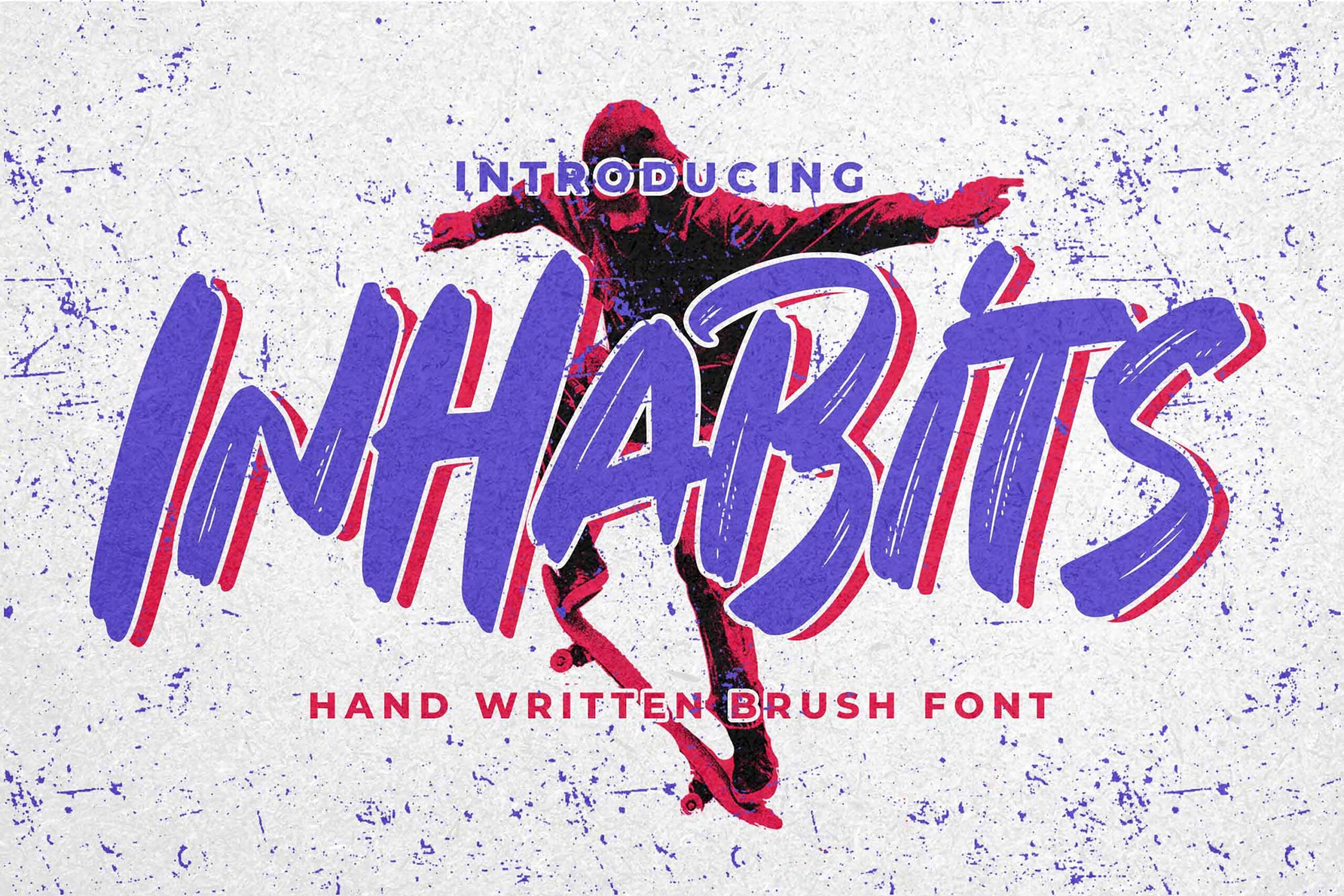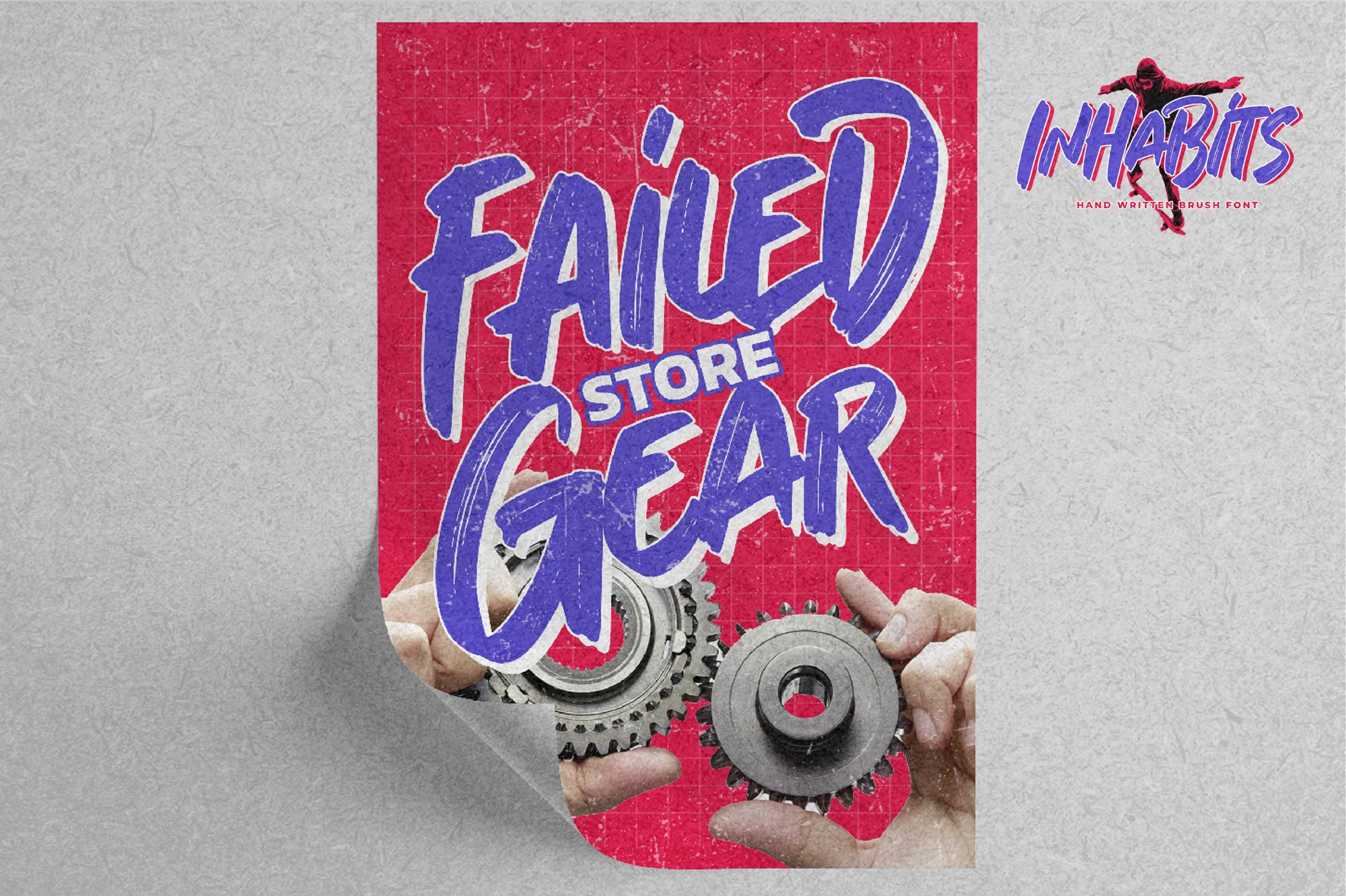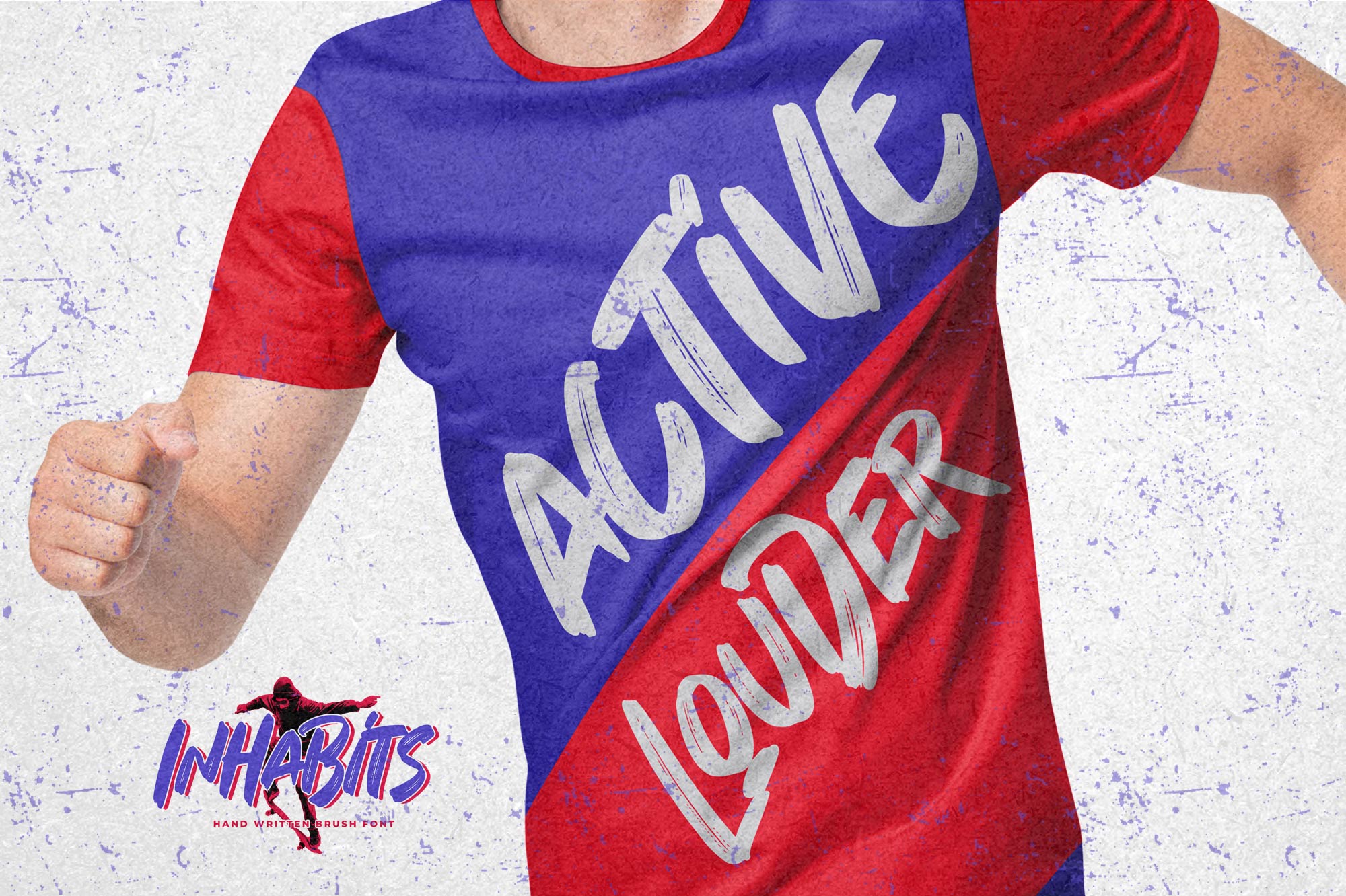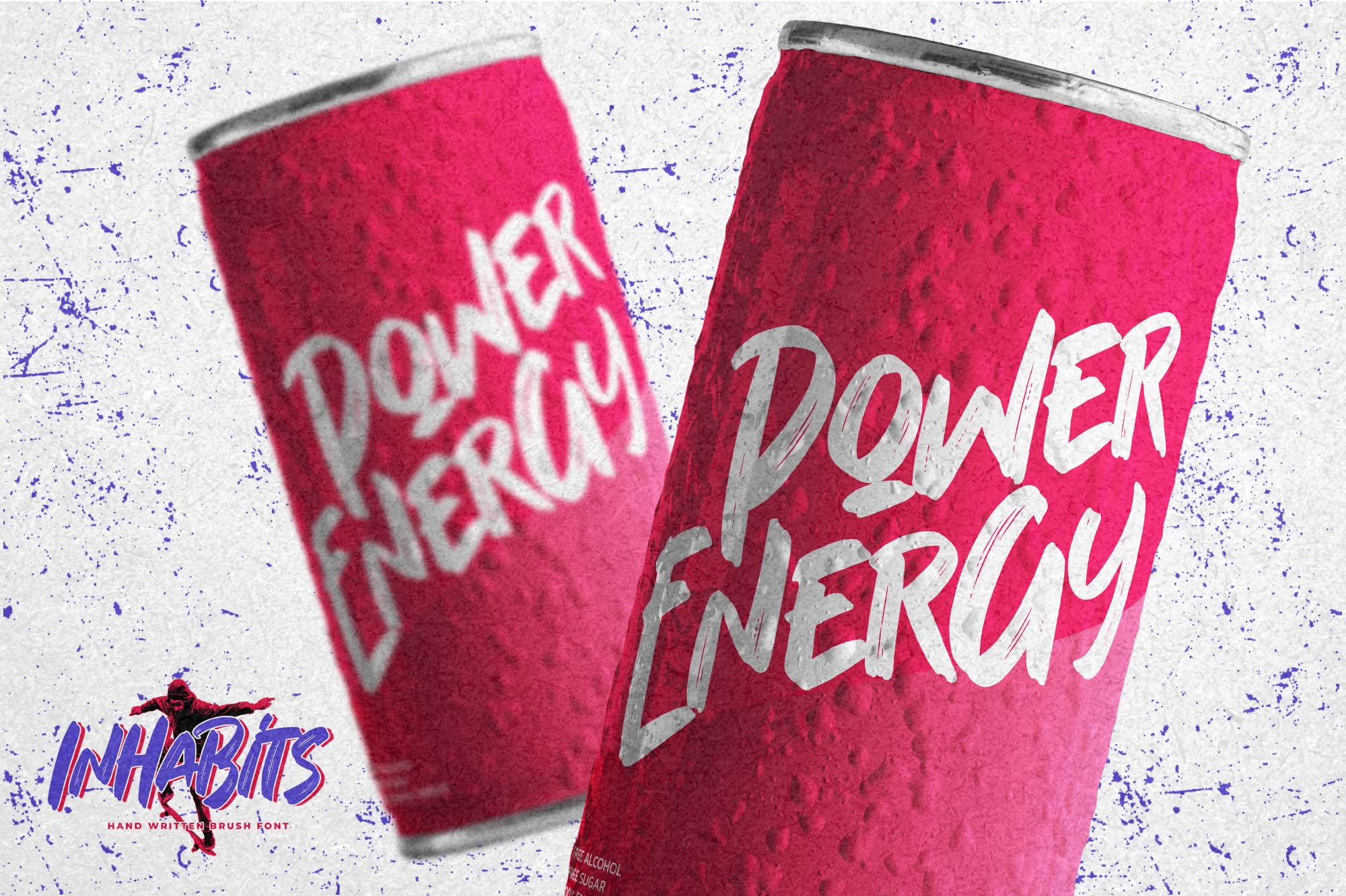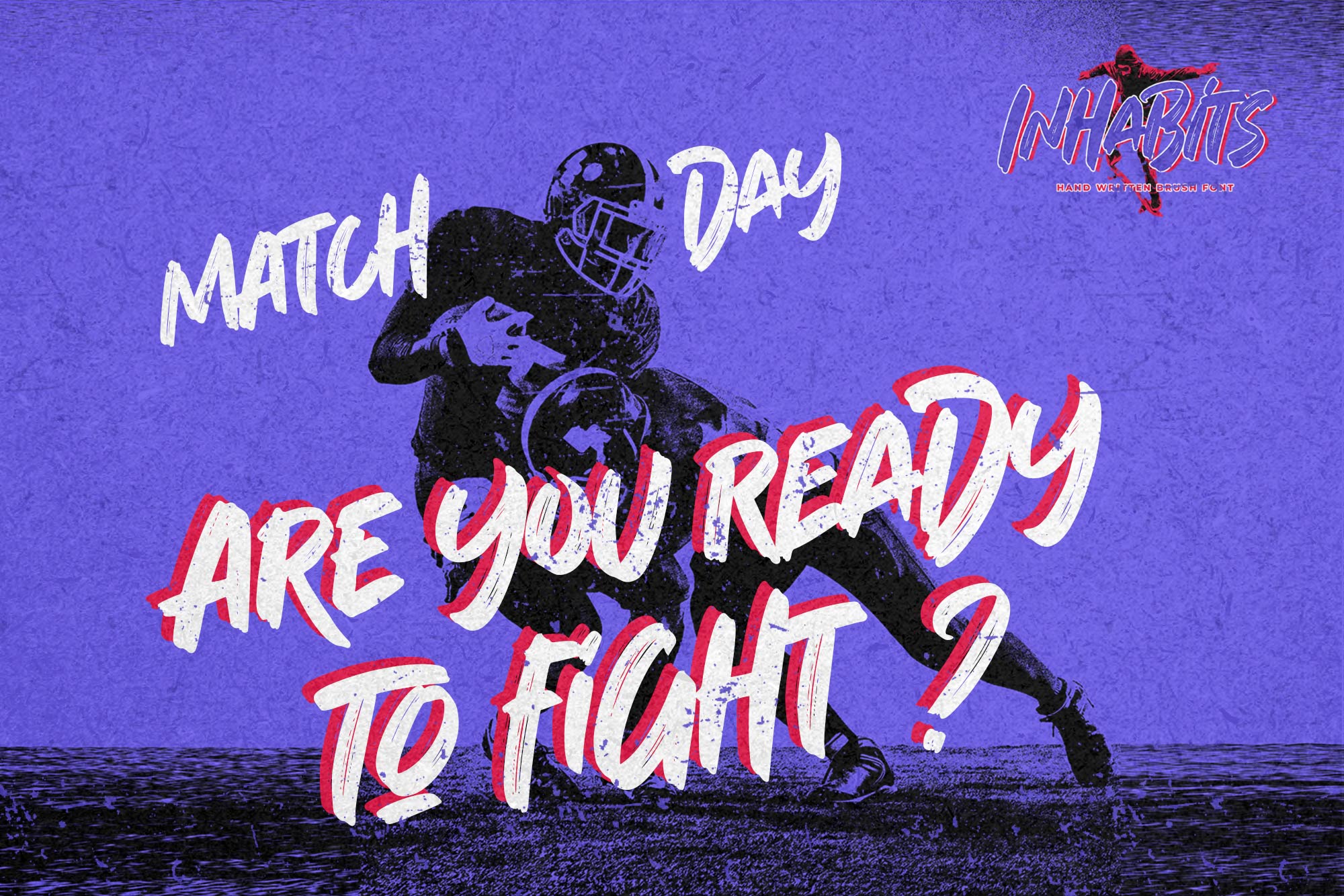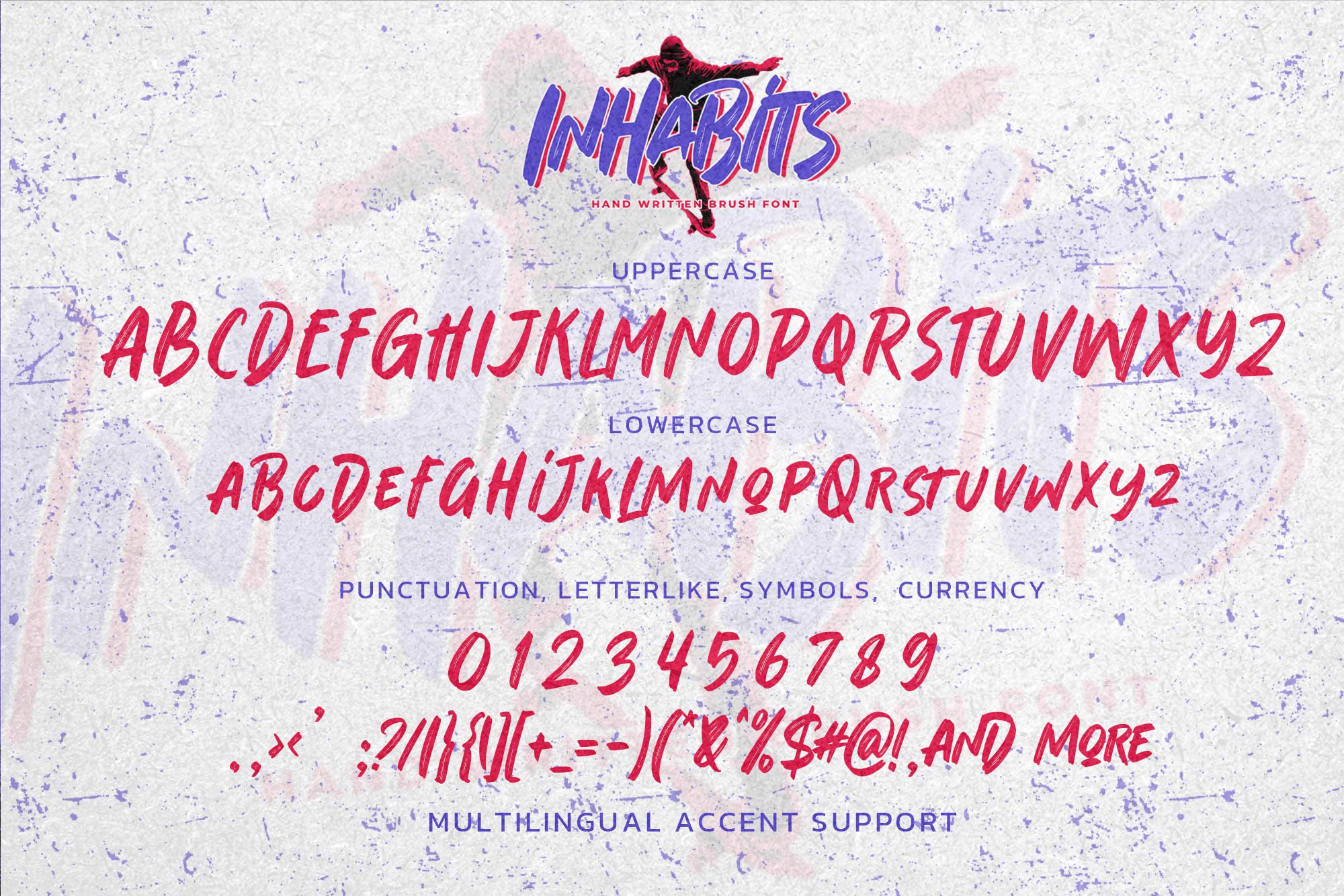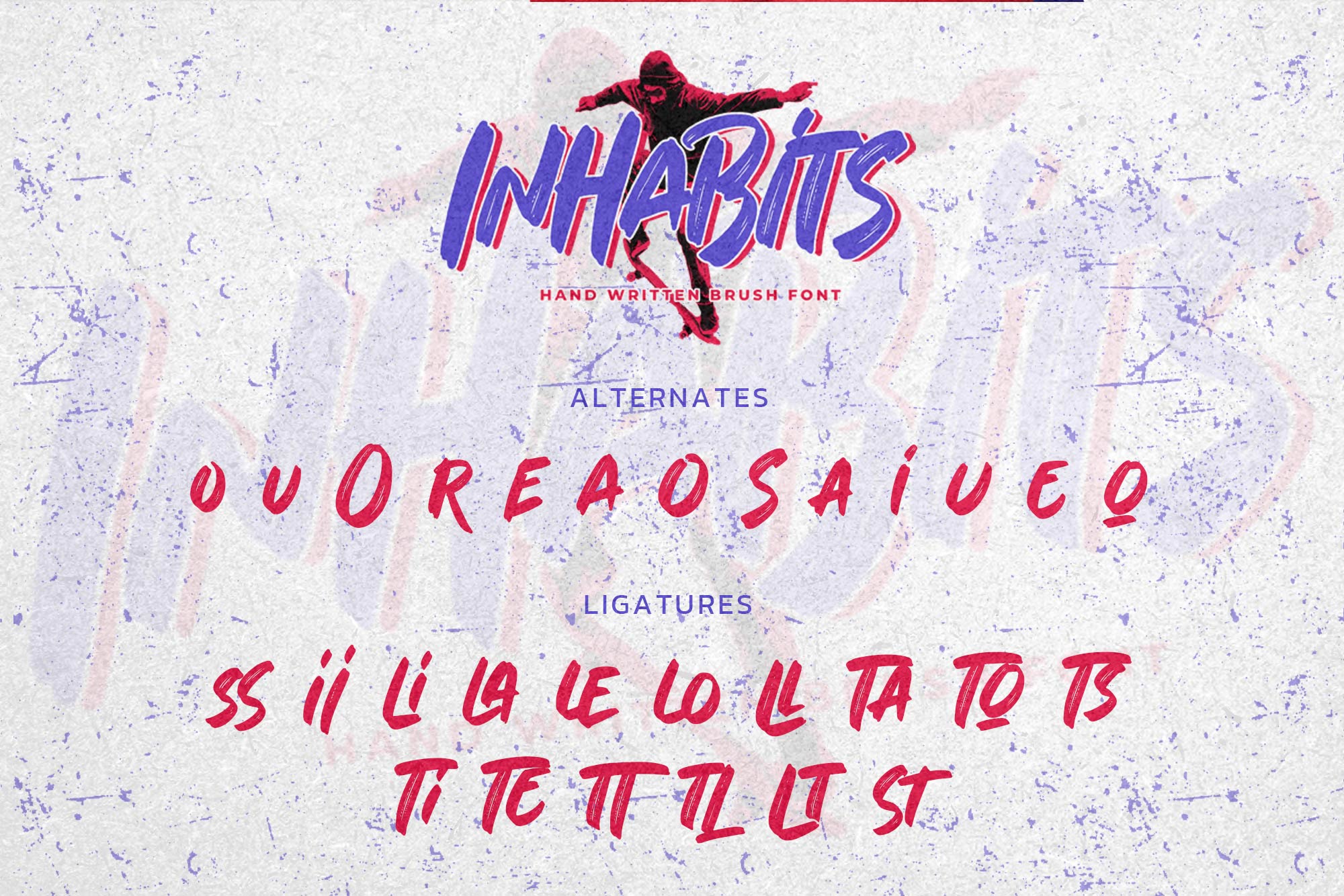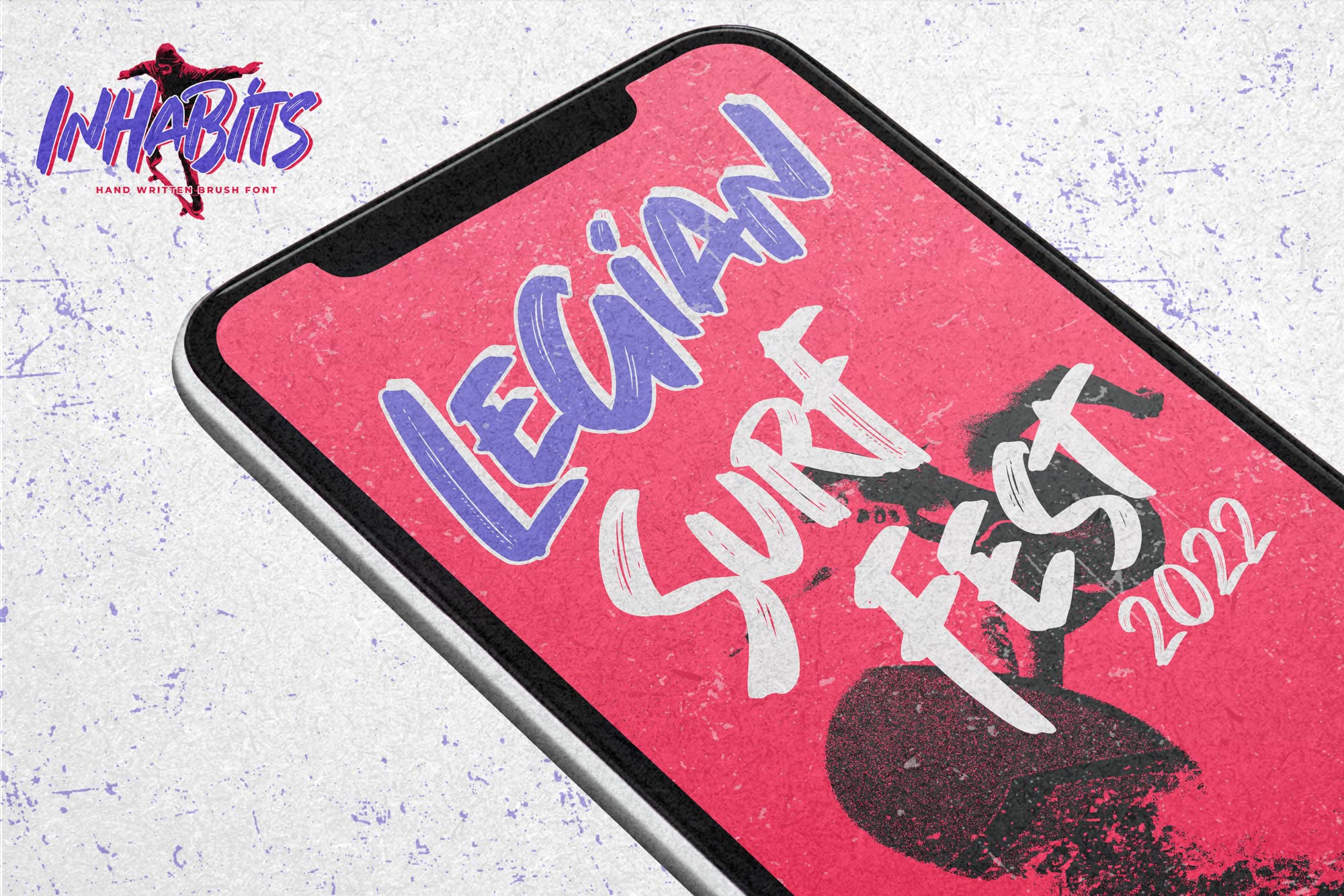
INHABITS – Handwritten Brush Font, modern style and dramatic movement that is written casually and quickly.
The best for labels, poster, project designs look modern, strong and cool . It’s perfect for labels, quotes, posters, DIY projects, branding, packaging, greeting cards, websites, photography overlays, signs, scrapbooking, tags and so much more! That is why INHABITS has a textured, and authentic characteristic more natural look. You can activate Ligatures and Alternates glyphs OpenType panel.